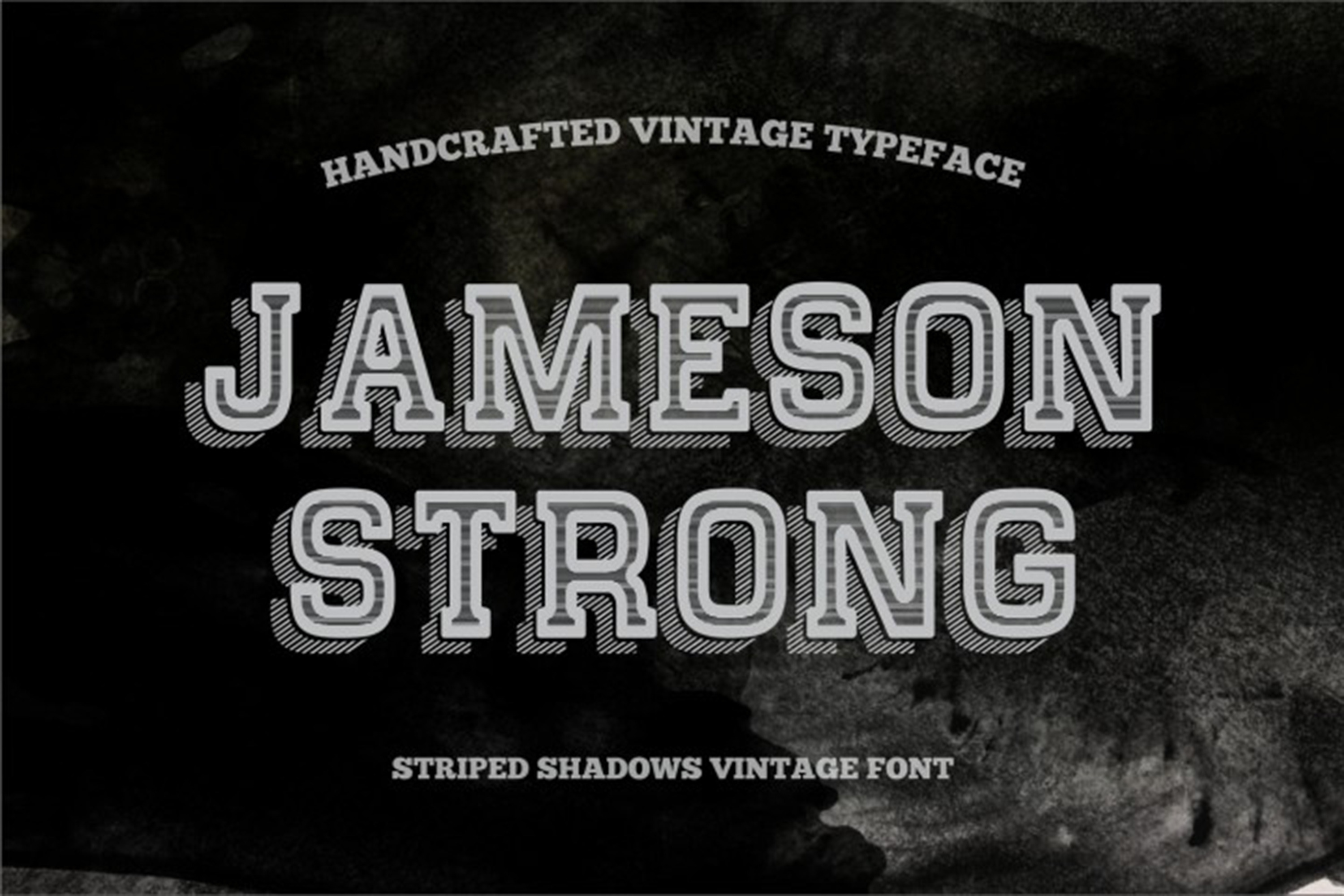
Striped Shadow Vintage Typeface
Postcard Font Striped Shadow - vintage typeface. The font you have downloaded is ideal for your design works in any type of context. It is basically mixture of standard font family types with modern design ideas used in many industries. Handcrafted by professional designers this attractive font is highly visible on any poster or postcard, or invitation letter heading.